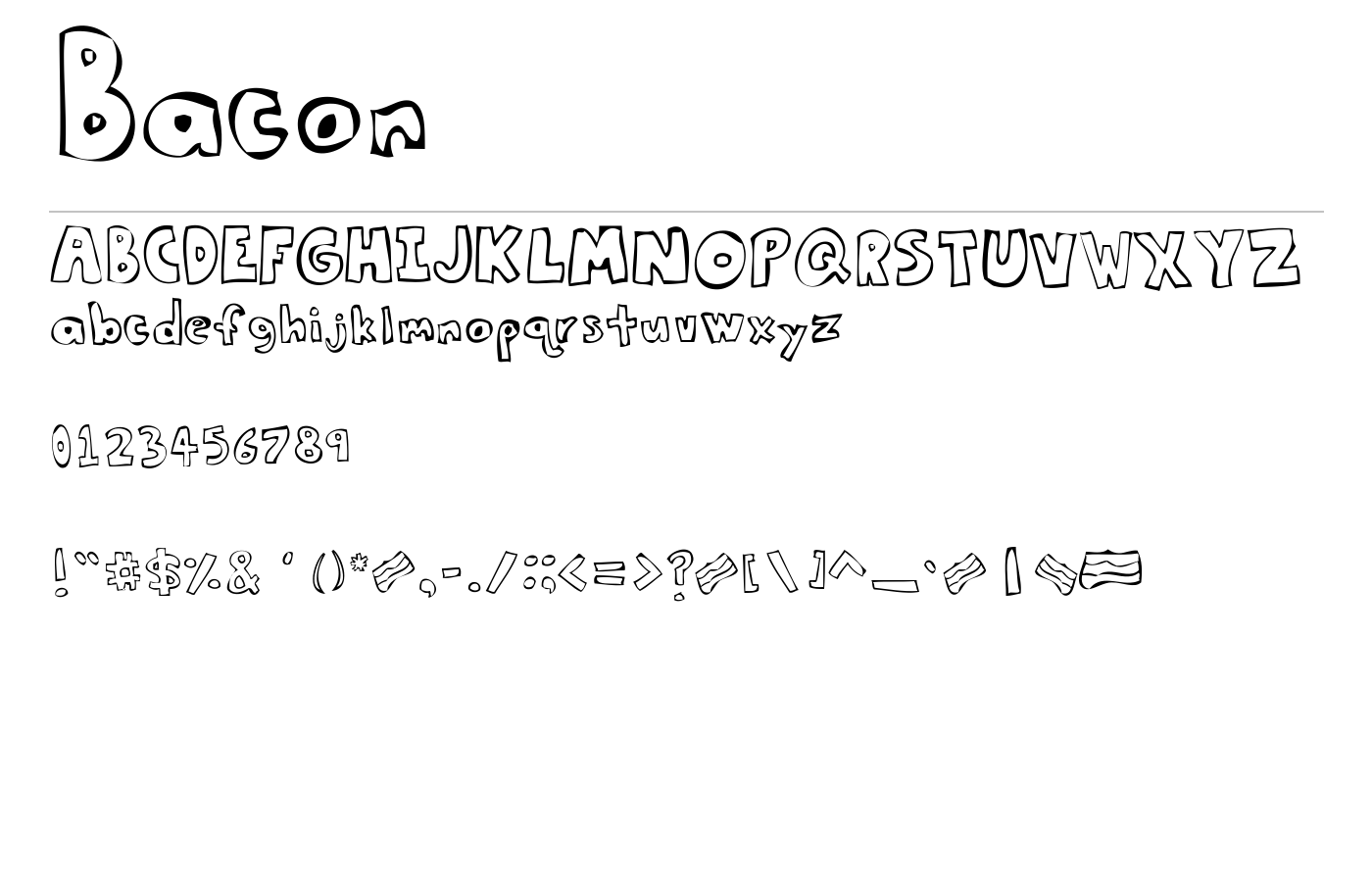
Bacon Font is a playful, hand-drawn sans serif with an informal and quirky character, featuring irregular shapes and a bold, outlined stroke that gives it a fun and approachable feel. Its uneven letterforms and whimsical style make it ideal for children’s books, casual branding, and creative projects where a lighthearted, friendly tone is desired. This font works best in headlines, posters, and packaging that need a unique, charming touch.
Bacon Font